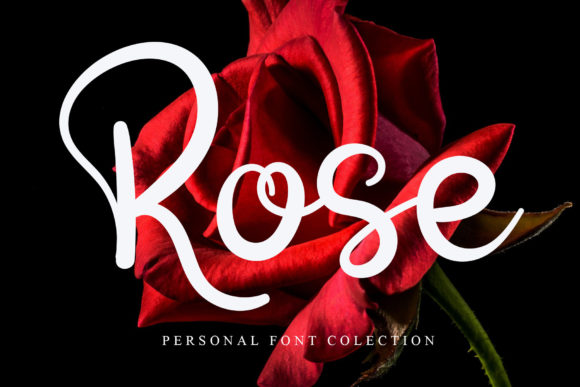
About Rose Font
Rose is a beautiful handwritten font. Perfect for use on wedding invitations, greeting cards, billboards, logos, business cards, and any other design that requires a handwritten touch. This font features a varied baseline, a very carefully crafted font. So that they create spectacular creations and will make your ideas look more real.